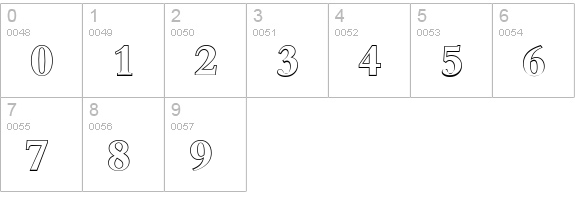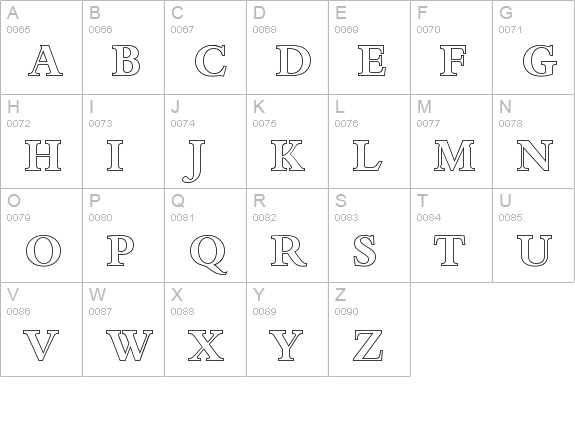
BambergOutline-Bold Font Details
BambergOutline-Bold is a strong, high-contrast variant in the BambergOutline typeface family \xE2\x80\x94 well suited to headlines, attention-grabbing titles, and strong calls-to-action.
BambergOutline-Bold is a modern and stylish font that exudes confidence and sophistication. Its bold and eye-catching design makes it perfect for headlines, titles, and other attention-grabbing text. The clean lines and distinct outline of this font give it a contemporary look that is sure to make any design stand out. What makes BambergOutline-Bold even more appealing is that it is available for free download at FontsMarket.com. This means you can easily access this high-quality font to enhance your projects without having to spend a dime. Whether you're creating posters, logos, or social media graphics, BambergOutline-Bold is a versatile font that will elevate your designs to the next level. Download it now and add a touch of modern elegance to your typography.